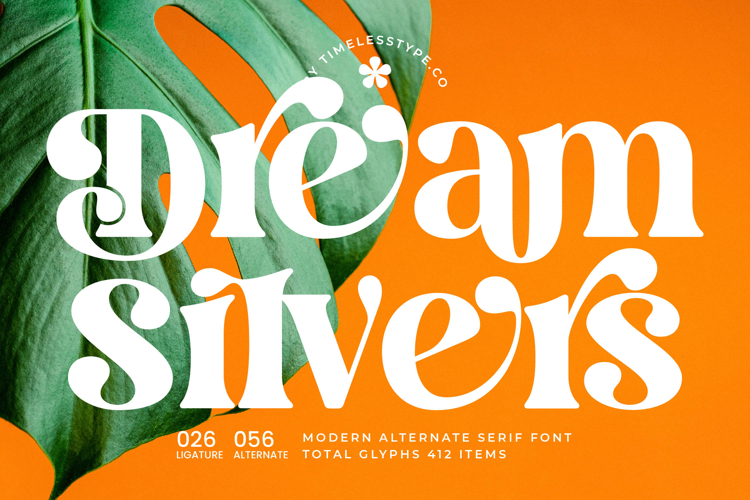
Dream Silvers - Modern Alternate Serif Font
Discover the epitome of refined typography with Dream Silvers - Modern Alternate Serif Font. This exquisite typeface masterfully blends classic serif elegance with a distinct contemporary twist, featuring high-contrast strokes and graceful curves that command attention. Its sophisticated character set is designed to instantly elevate any design project, imbuing it with a sense of luxury and timeless appeal.
Unleash unparalleled creative potential through the inherent versatility of Dream Silvers - Modern Alternate Serif Font. Boasting a rich array of stylistic alternates and ligatures, this font empowers designers to craft truly unique typographic compositions that stand out. These intricate details ensure every headline, logo, or body text carries an artisanal touch, perfect for establishing a distinctive visual identity.